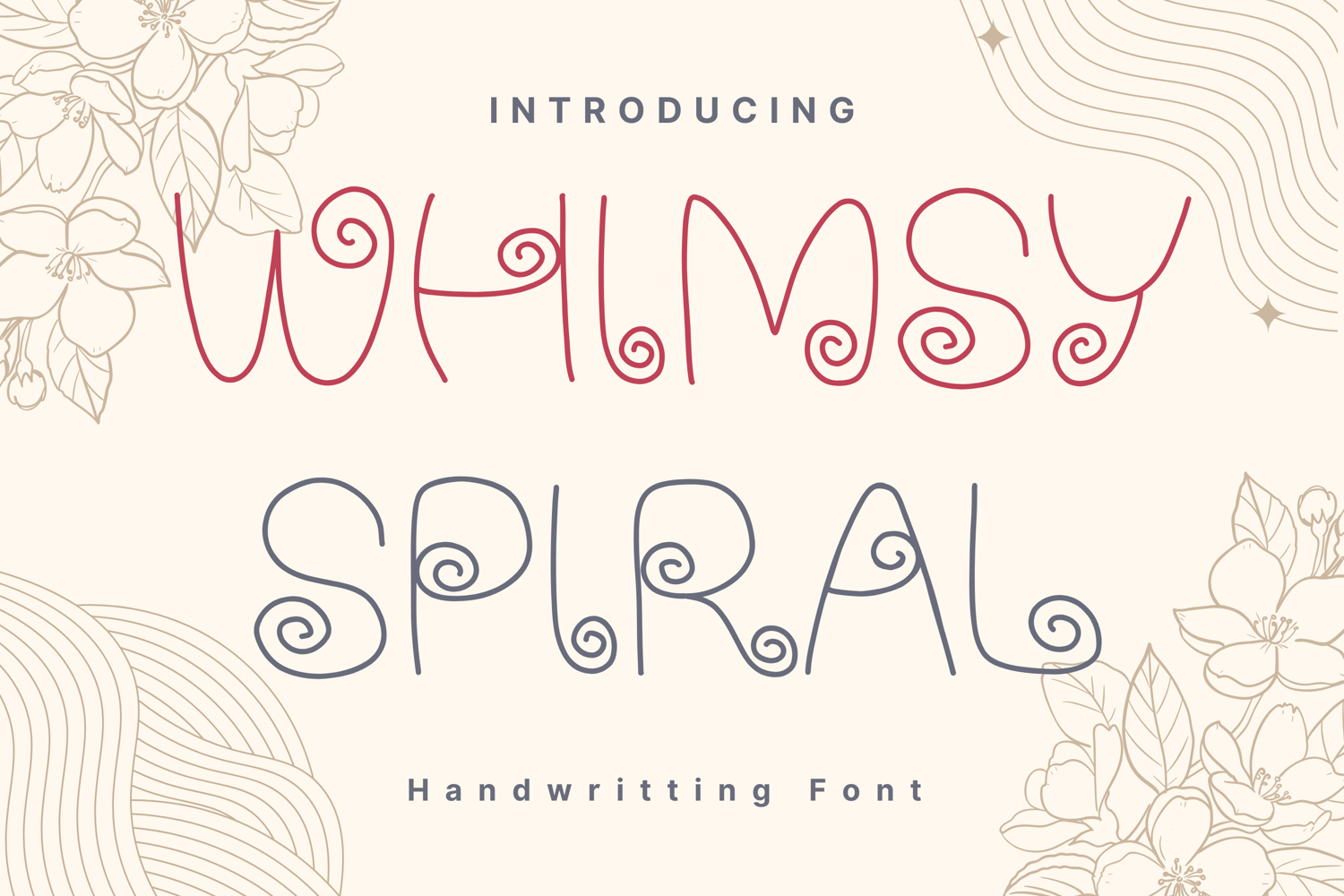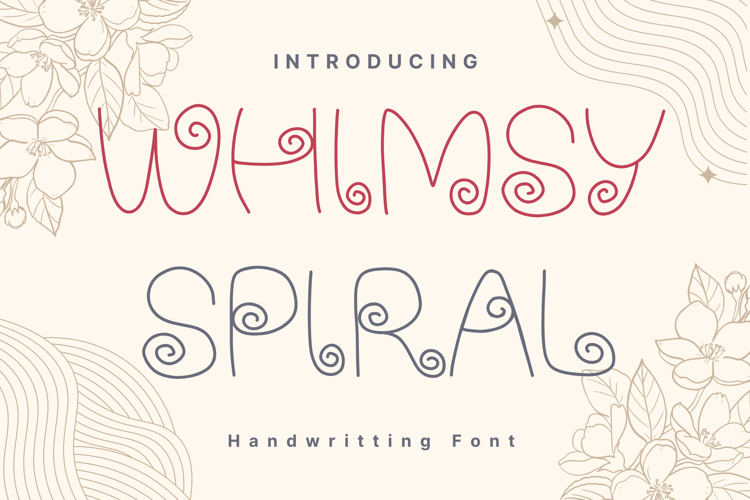
Whimsy Spiral Style
Whimsy Spiral
Whimsy Spiral is a fun and quirky decorative font featuring playful swirl elements inside each letterform. Its whimsical curves and spiral embellishments create a lively, cheerful vibe perfect for children’s projects, party invitations, playful branding, and creative crafts. This font balances readability with a unique ornamental twist, making it stand out in both digital and print designs.